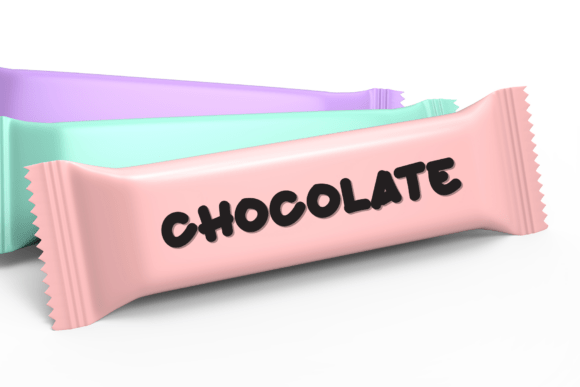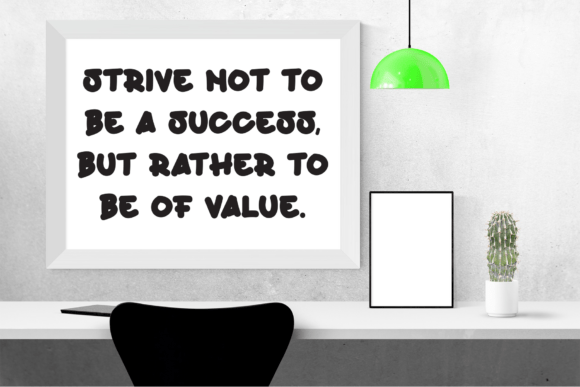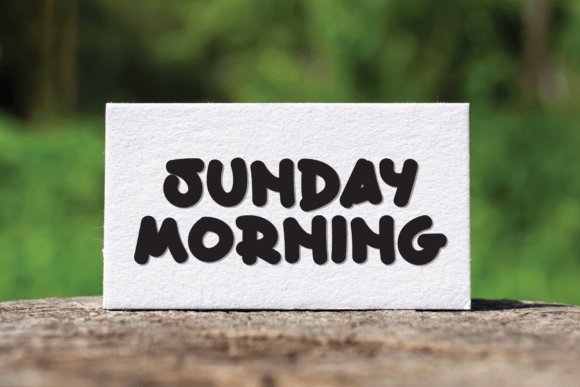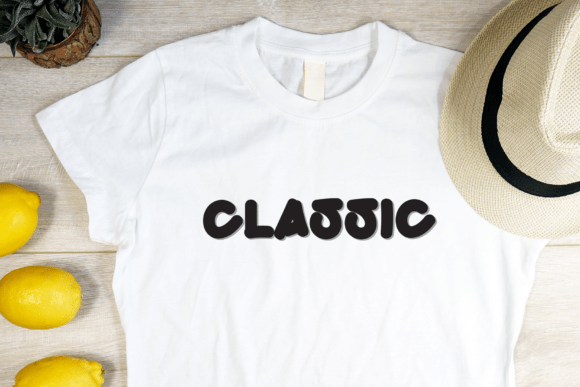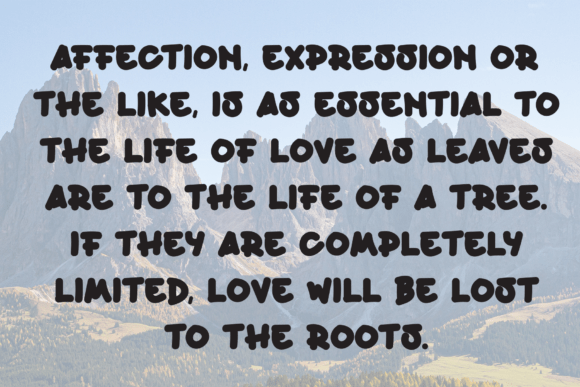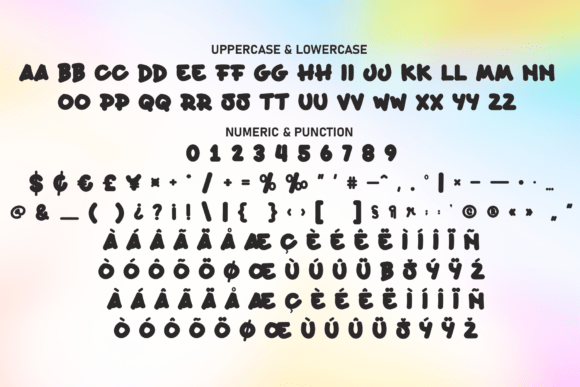
Unveiling the Enchanting Color Rainbow Font: A Designer’s Dream Come True
I’ll never forget the moment I stumbled upon the elusive perfect font for a wedding invitation project. My client wanted something that exuded warmth, elegance, and a touch of magic. As I scrolled through countless font libraries, I felt like a kid in a candy store, overwhelmed by the endless options. That’s when I discovered the captivating Color Rainbow Font. ✨
This carefully handmade display font instantly caught my attention with its welcoming glow and irresistible allure. I knew right then and there that I had found the perfect fit for my project. In this article, I’ll share my experience with the Color Rainbow Font, its unique features, and how to make the most of it in your designs.
A Personal Review: What I Love and What to Consider
- ✨ Unique and eye-catching design: The Color Rainbow Font boasts a one-of-a-kind aesthetic that’s sure to make your designs stand out.
- ✅ Perfect for wedding invites and personalized cards: This font’s elegant and whimsical feel makes it an ideal choice for special occasions.
- 🎨 Highly versatile: The font’s adaptability allows you to experiment with various design styles and color schemes.
A Few Quirks to Keep in Mind
While the Color Rainbow Font is undoubtedly stunning, there are a few things to consider:
- ⚠️ Legibility at smaller sizes: As with many display fonts, the Color Rainbow Font may lose legibility when used at smaller sizes. Make sure to test it in your design before finalizing.
- 🤔 Glyph limitations: Some users have reported that the font’s glyph set is not as extensive as they would like. However, the existing glyphs are thoughtfully designed and can be used creatively.
The Story Behind the Color Rainbow Font
The Color Rainbow Font was designed by a talented typographer who sought to create a unique and captivating font that would add a touch of magic to any design. Inspired by the beauty of rainbows and the world of fantasy, this font is the result of careful craftsmanship and attention to detail.
Q: Is the Color Rainbow Font suitable for body text?
A: While the Color Rainbow Font is stunning, it’s primarily designed for display purposes. Its legibility may suffer at smaller sizes, making it less suitable for body text.